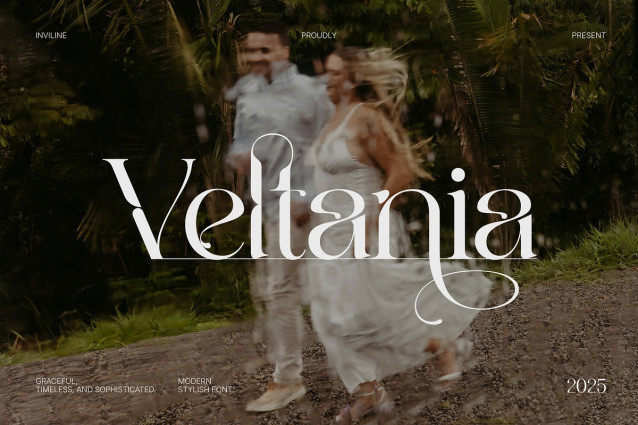
Veltania Font
Veltania Font – Modern Serif Font, the perfect fusion of elegance and modernity in a serif font. Designed for versatility, Veltania features clean lines and sophisticated curves, making it ideal for branding, editorial design, and digital media. With a range of weights and styles, it effortlessly adapts to any creative project, whether you’re crafting stunning headlines or elegant body text. Elevate your designs with Veltania and bring a touch of modern sophistication to your typographic creations!